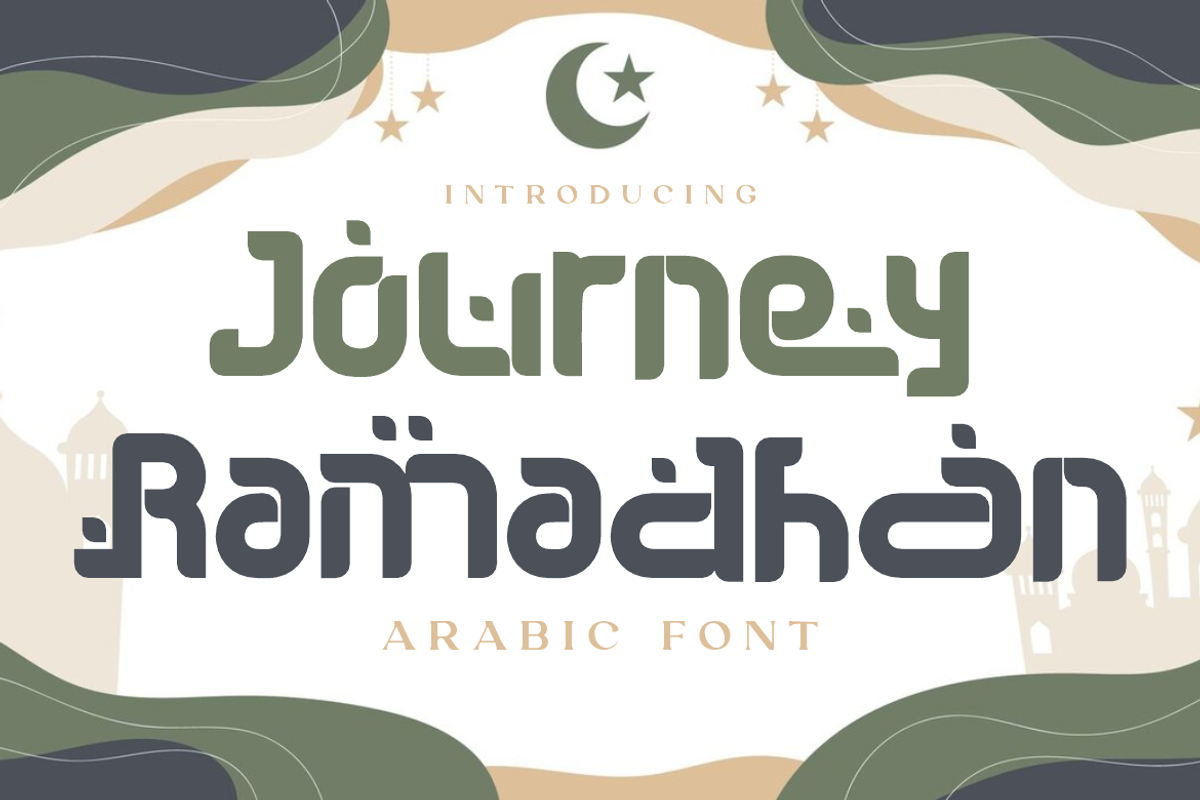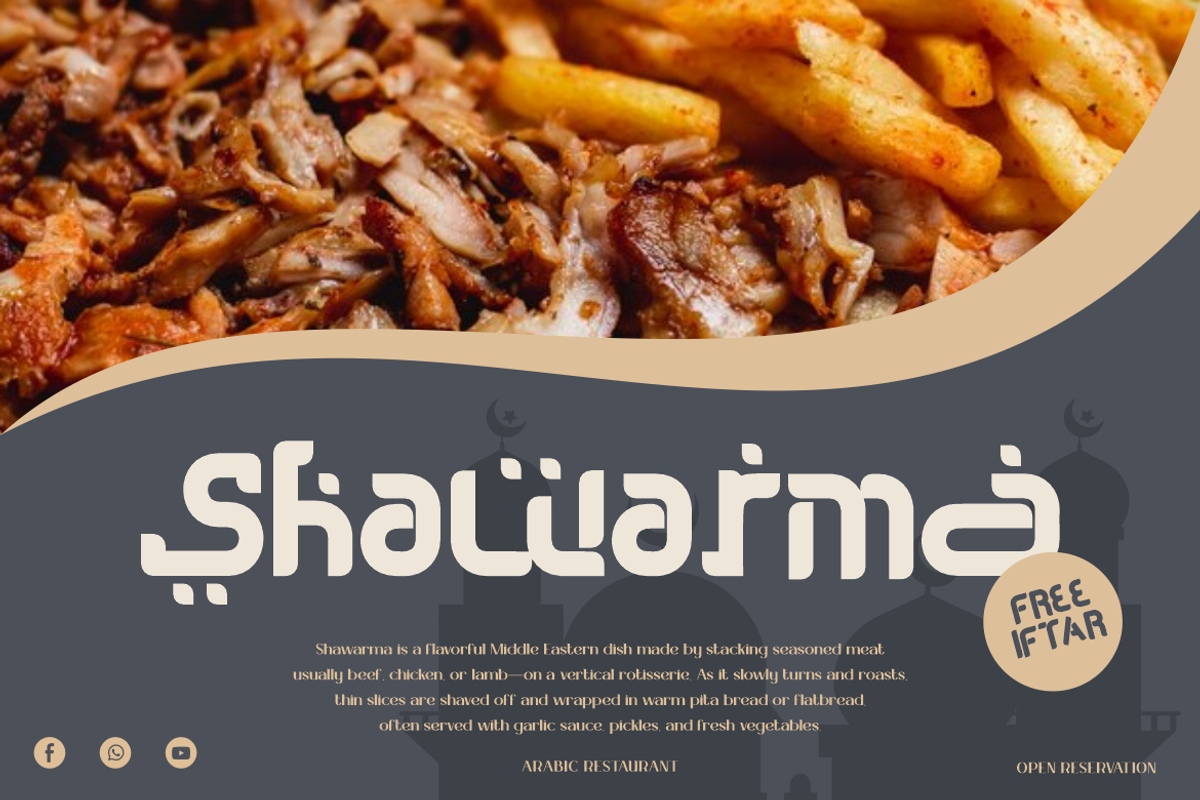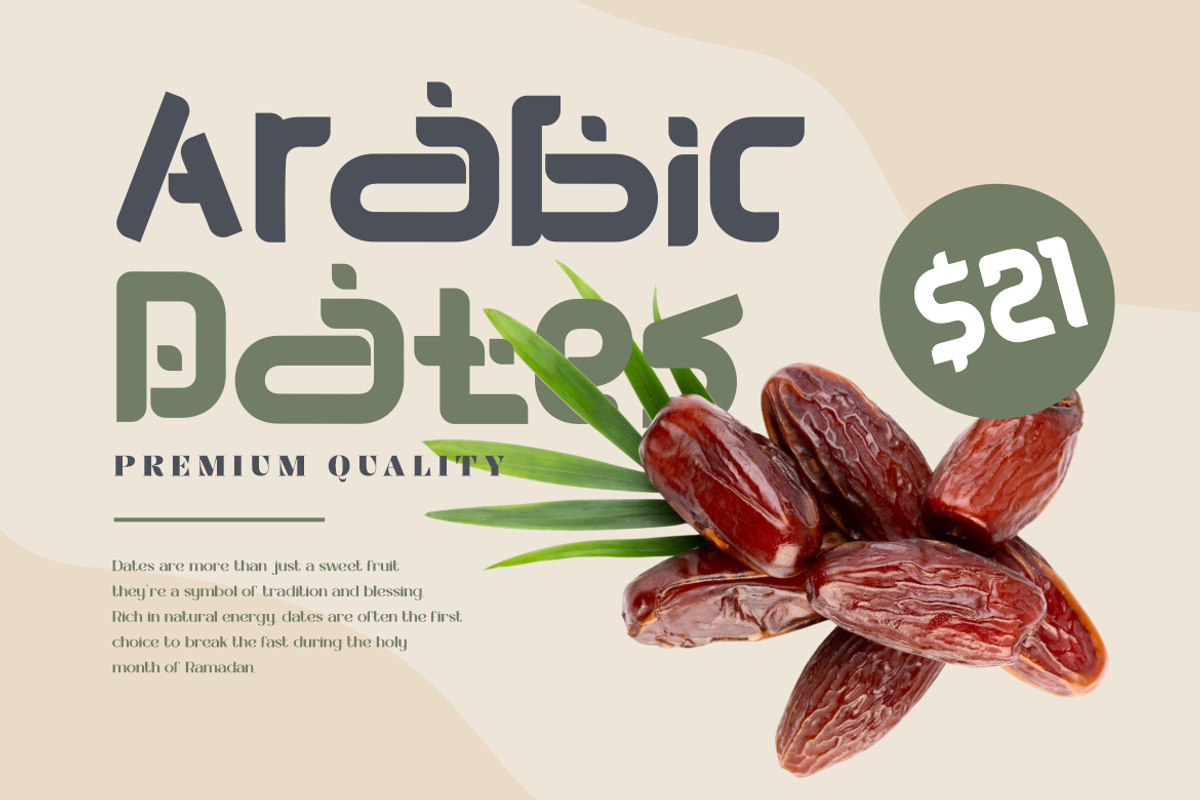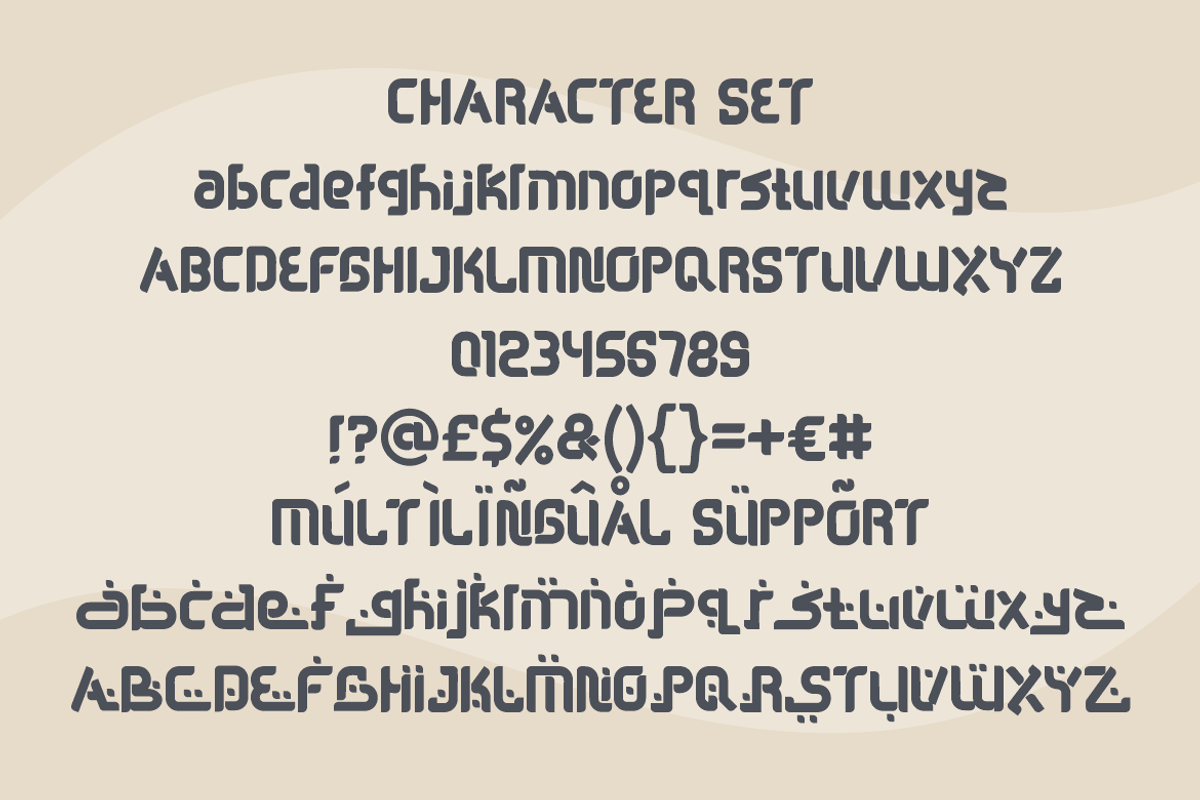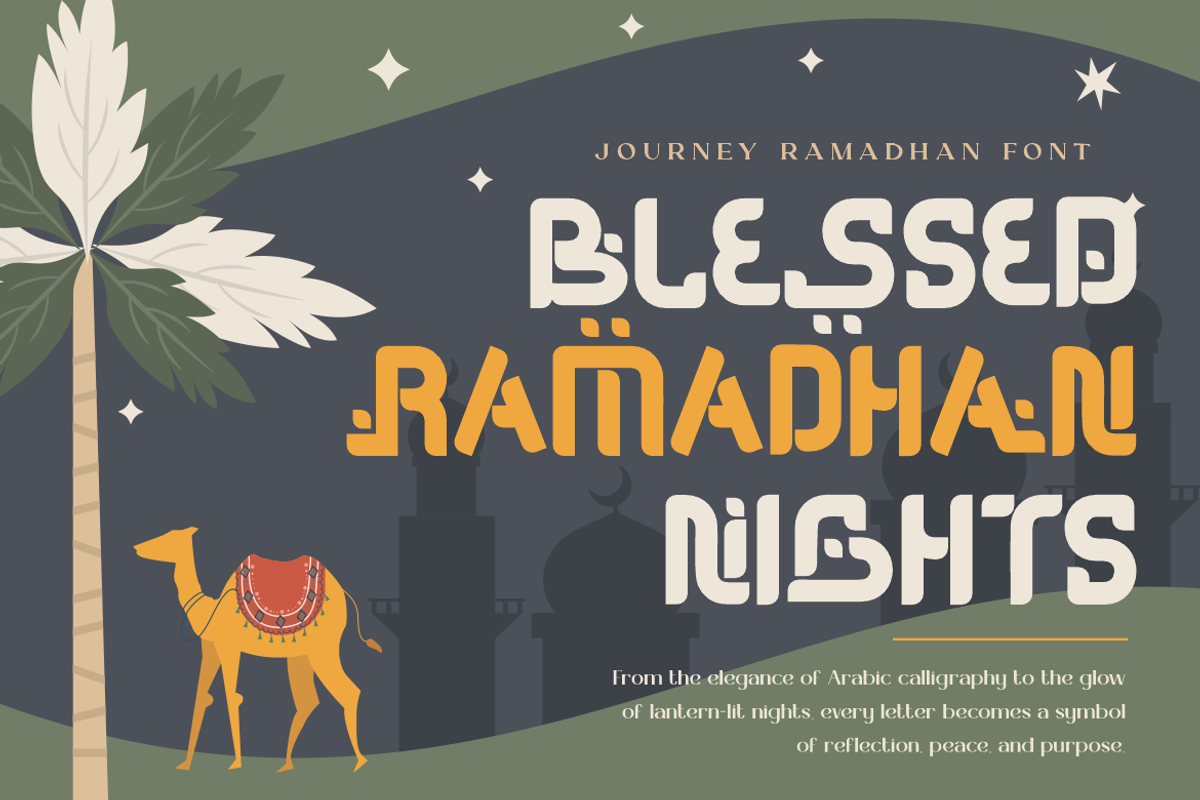
Journey Ramadhan - Arabic Font
Journey Ramadhan is a modern Arabic-inspired display font that beautifully blends Islamic calligraphy influences with contemporary typographic styling. Its unique geometric curves, softened edges, and signature ornamental dots mimic traditional Arabic script, creating a typeface that feels both sacred and celebratory. Each character is crafted with visual harmony and cultural depth, making it perfect for festive contexts like Ramadhan greetings, religious branding, or cultural packaging. The font’s bold yet elegant appearance stands out on both light and dark backgrounds, allowing seamless integration into visual storytelling—from posters and social campaigns to food labels and product packaging.
Designed for versatility, Journey Ramadhan includes uppercase, lowercase, multilingual support, and an expansive symbol set, ensuring compatibility across global audiences. Its layered visual tone evokes a sense of spirituality, warmth, and festivity—ideal for use in Islamic events, Middle Eastern culinary branding, Halal product labels, or community event promotions. Whether used for logo design, greeting cards, digital banners, or traditional product tags, this font offers a harmonious typographic journey through the holy month and beyond.